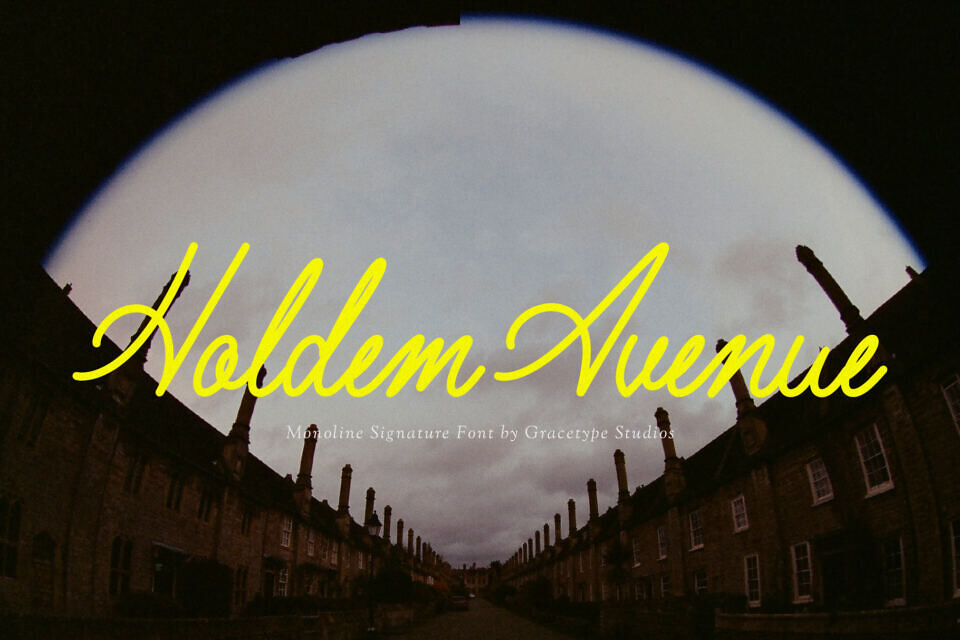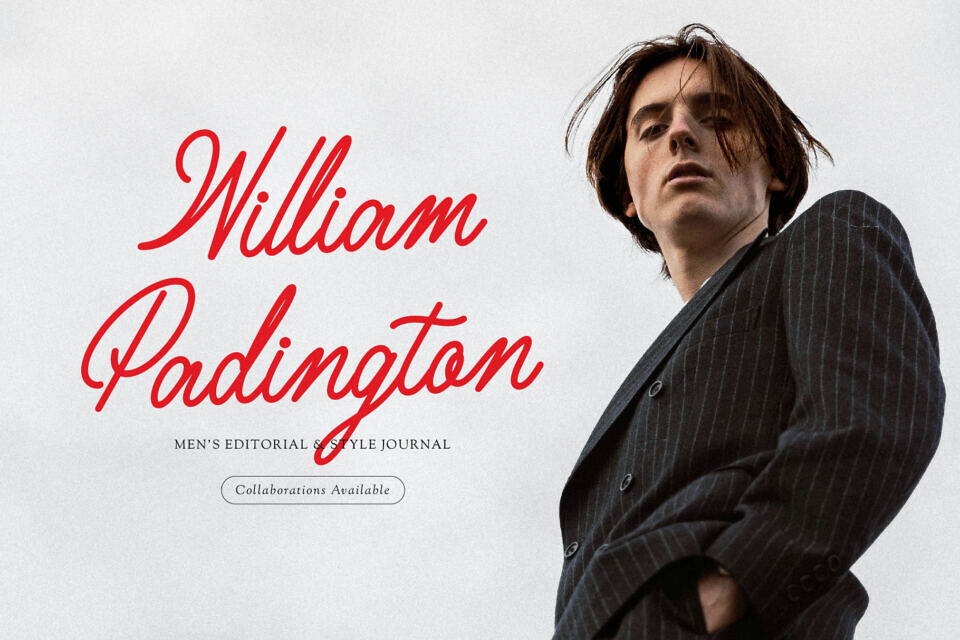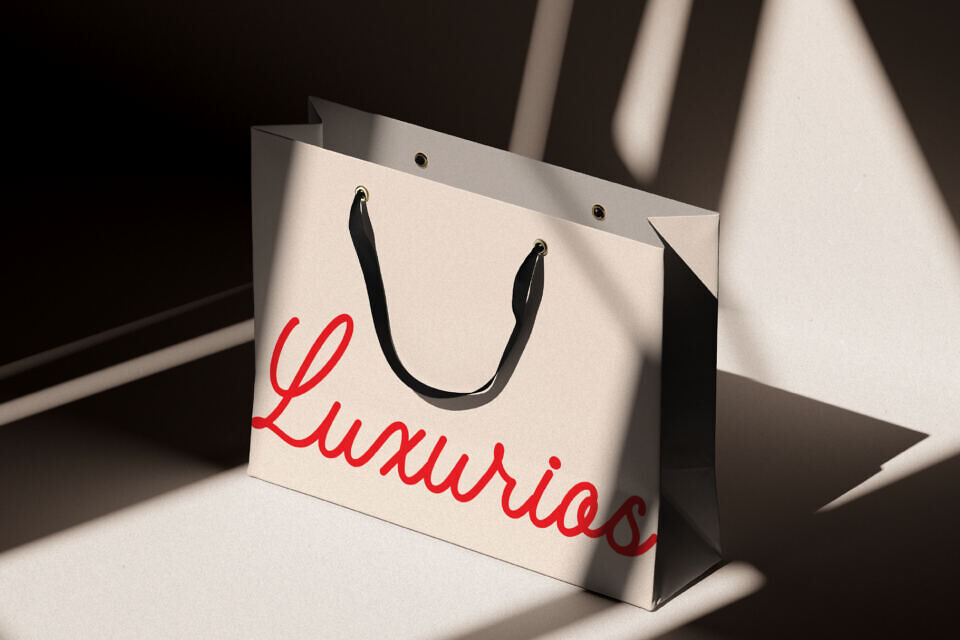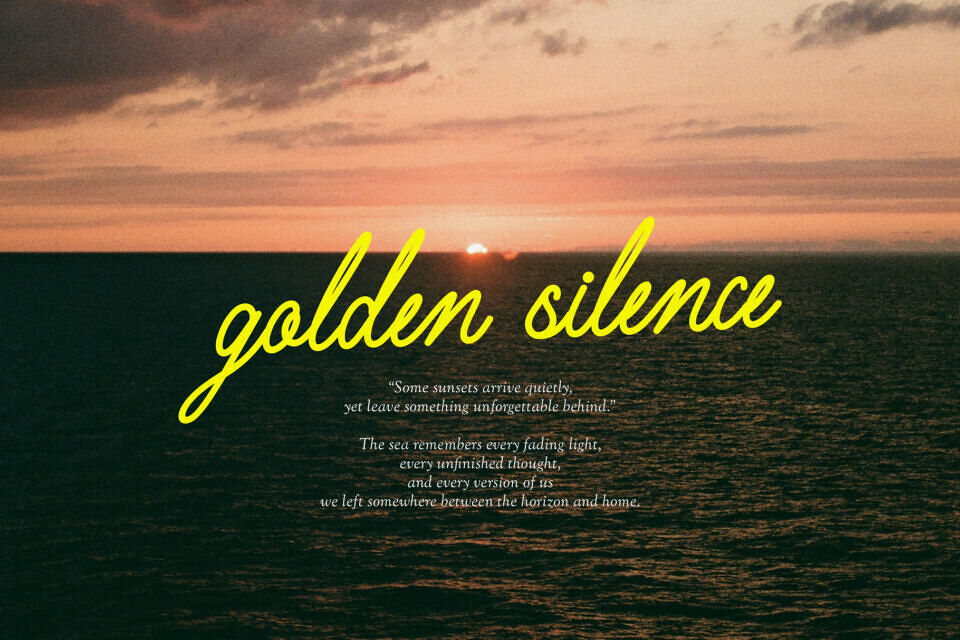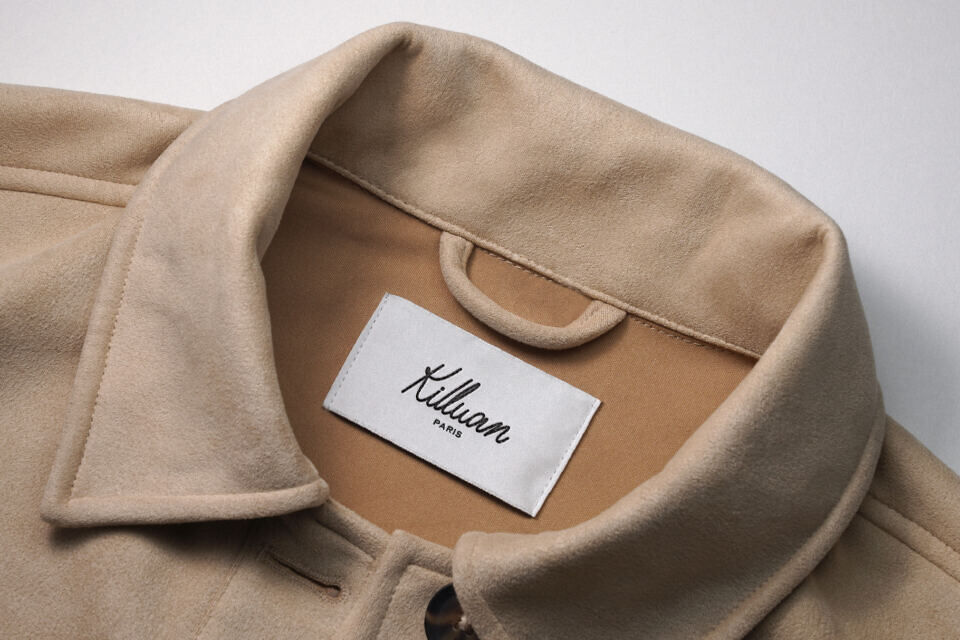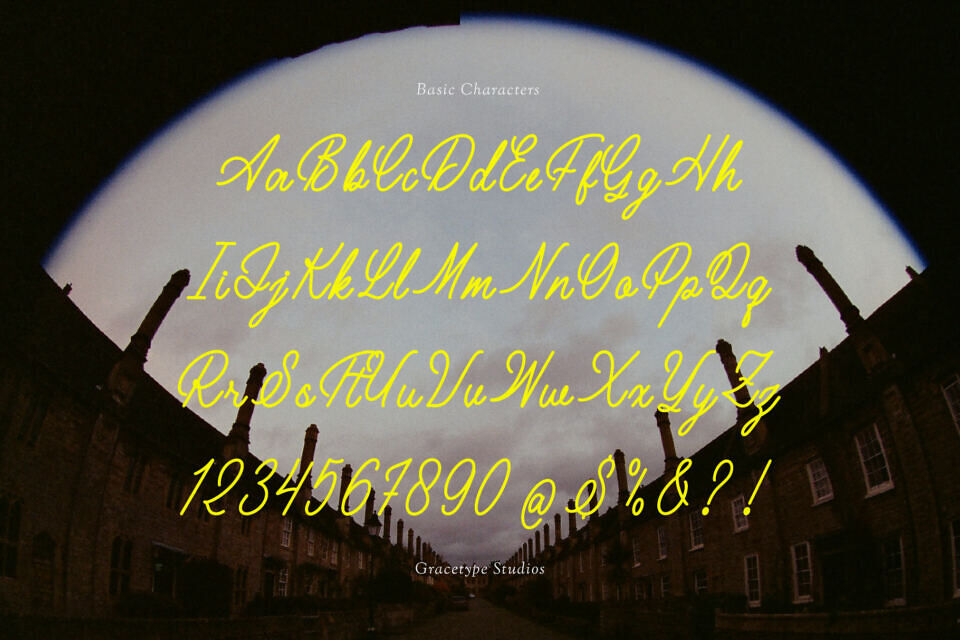
Holdem Avenue Font
Capture a perfect blend of high-end style and casual confidence with Holdem Avenue, a premium monoline signature font. Featuring a sleek, uniform stroke weight, elegant high loops, and an authentic hand-drawn slant, this script effortlessly mimics the flowing stroke of an upscale fountain ink pen.
Holdem Avenue is an exceptional choice for designers and creators seeking to give their projects a personalized, high-fashion edge. It acts as an instant mark of luxury for photography watermarks, upscale boutique branding, chic business cards, stylish product packaging, social media mood boards, and modern wedding invitations.